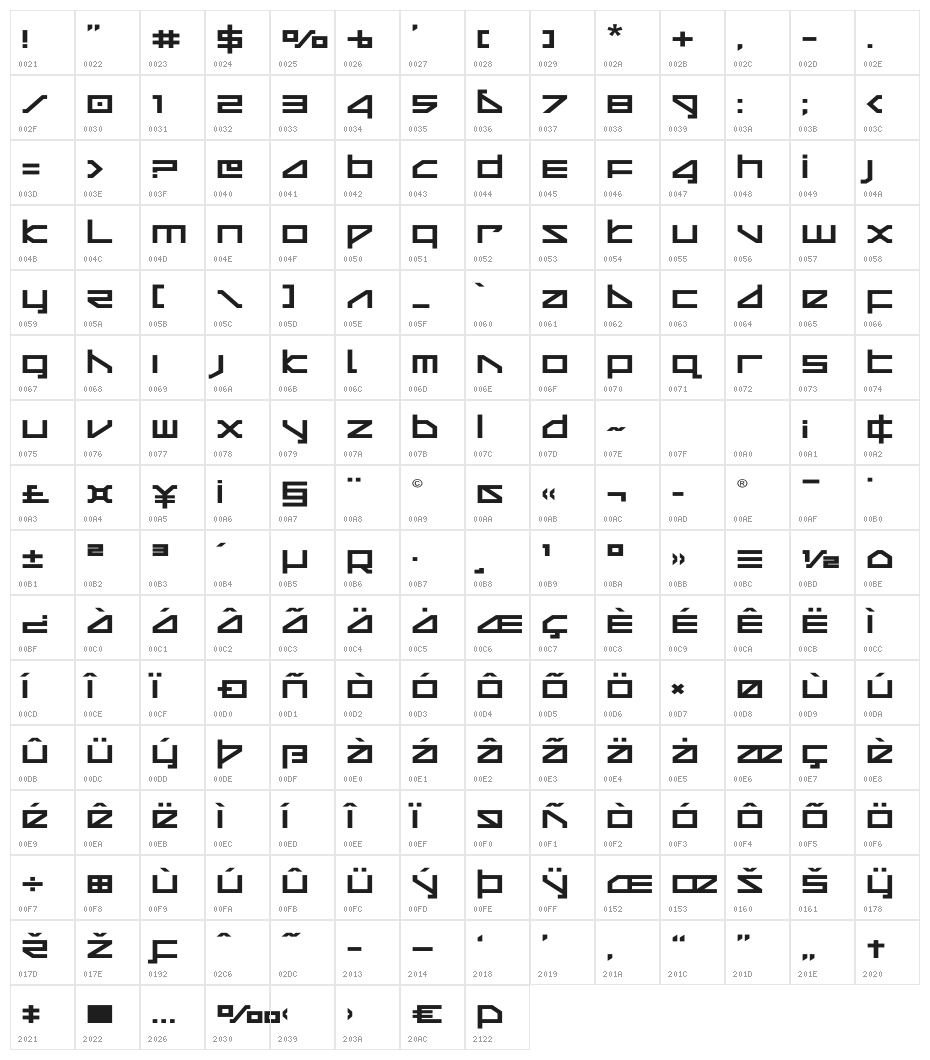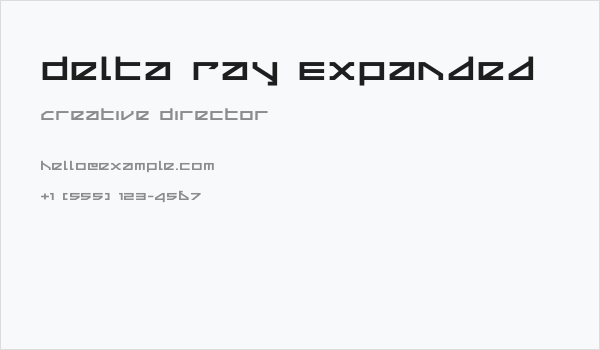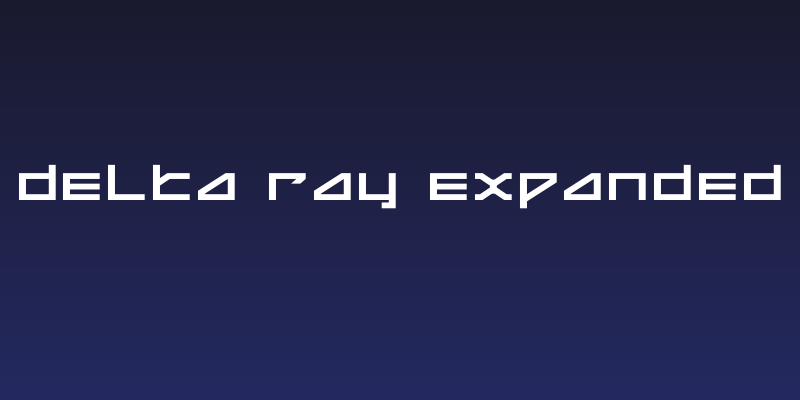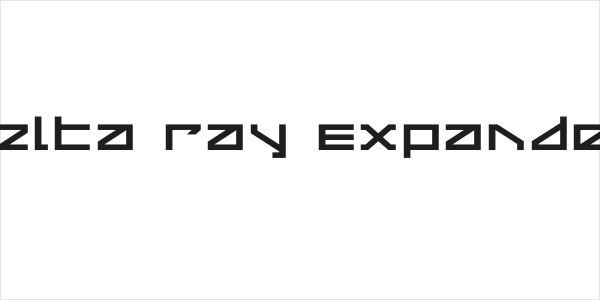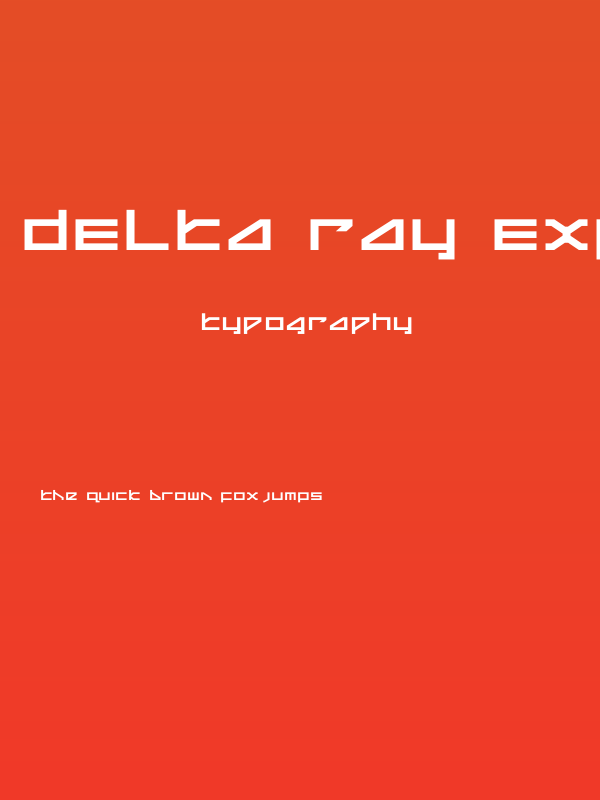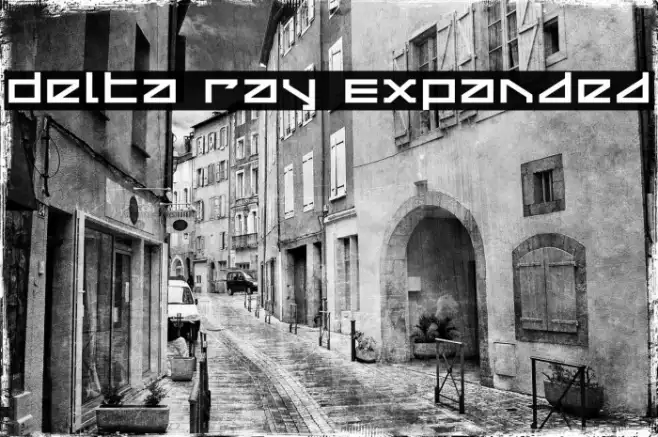
Delta Ray Expanded Font
Delta Ray Expanded Description
This font features a futuristic and geometric design, characterized by sharp angles and a bold presence. The characters are constructed with a consistent stroke width, giving it a uniform and cohesive look. The angular design elements provide a modern and tech-inspired aesthetic, making it suitable for projects that require a contemporary and edgy feel. The uppercase and lowercase letters maintain a similar style, ensuring readability while retaining the unique design. Numbers and special characters are crafted with the same attention to detail, offering a complete and versatile typeface.
| Proposed Projects | Ideal for tech branding, sci-fi themed projects, video game titles, and modern advertising. |